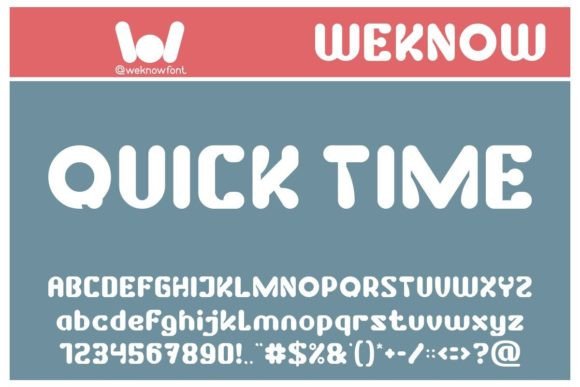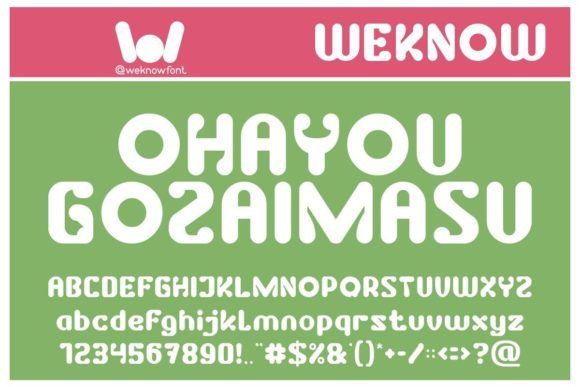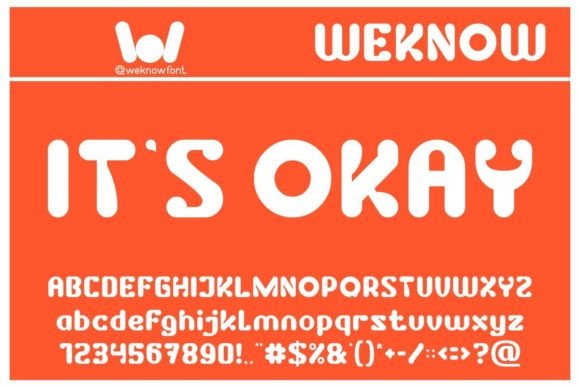
Introduction to Cute Trigger Font
Cute Trigger is a fancy display font suitable for a logo, logotype, headline, corporate identity, brand identity, apparel industry, poster, music, movie, game, magazine, book, comic, cartoon, YouTube, Instagram, website, or any of your creative design projects.
Key Features of Cute Trigger Font